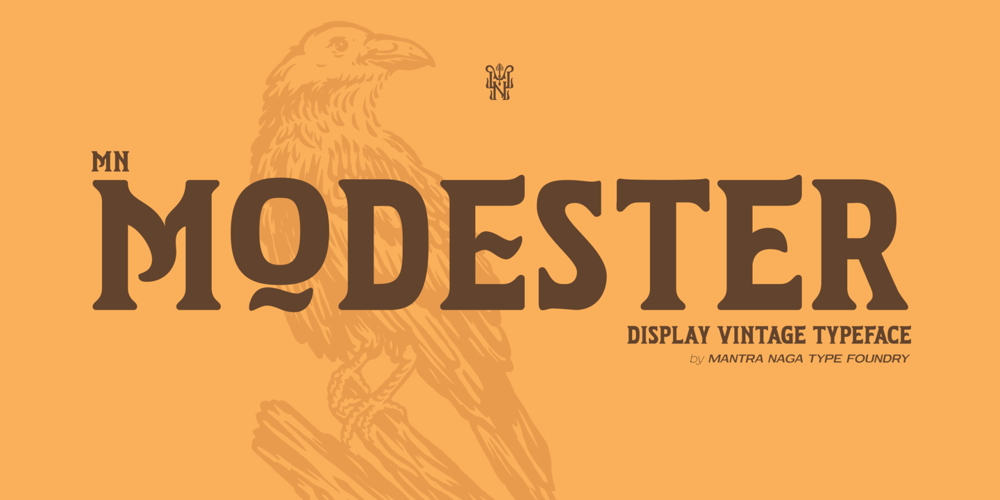
MN Modester Font Family was designed by Fredo Eka Pratama and published by Mantra Naga Studio. MN Modester contains 5 styles and family package options. Discover MN Modester, a distinctive display vintage typeface that channels the bold essence of Wild West culture and typography, seamlessly blended with classic vintage style. Available in four versatile styles—Regular, Outline, Italic, and Italic Outline—MN Modester offers flexibility while maintaining a strong, masculine presence. The rounded serifs add a touch of softness, making the font both powerful and approachable. Perfect for headlines, logotypes, brand identities, and more, MN Modester ensures your designs stand out with a unique blend of strength and charm. To enhance your creativity, this font also includes a bonus set of Wild West-inspired illustrations, adding an authentic edge to any project. Embrace the timeless appeal of the Wild West with MN Modester, where tradition meets vintage flair.Wild West Font, Vintage Display Typeface, Bold Typography, Western Style Font, Retro Font, Masculine Font, Headline Font, Logotype Font, Vintage Font Collection, Western Design, Serif Font with Rounded Edges, Illustration Font Pack, Classic Western Typeface, Old West Inspired Font, Wild West Illustrations